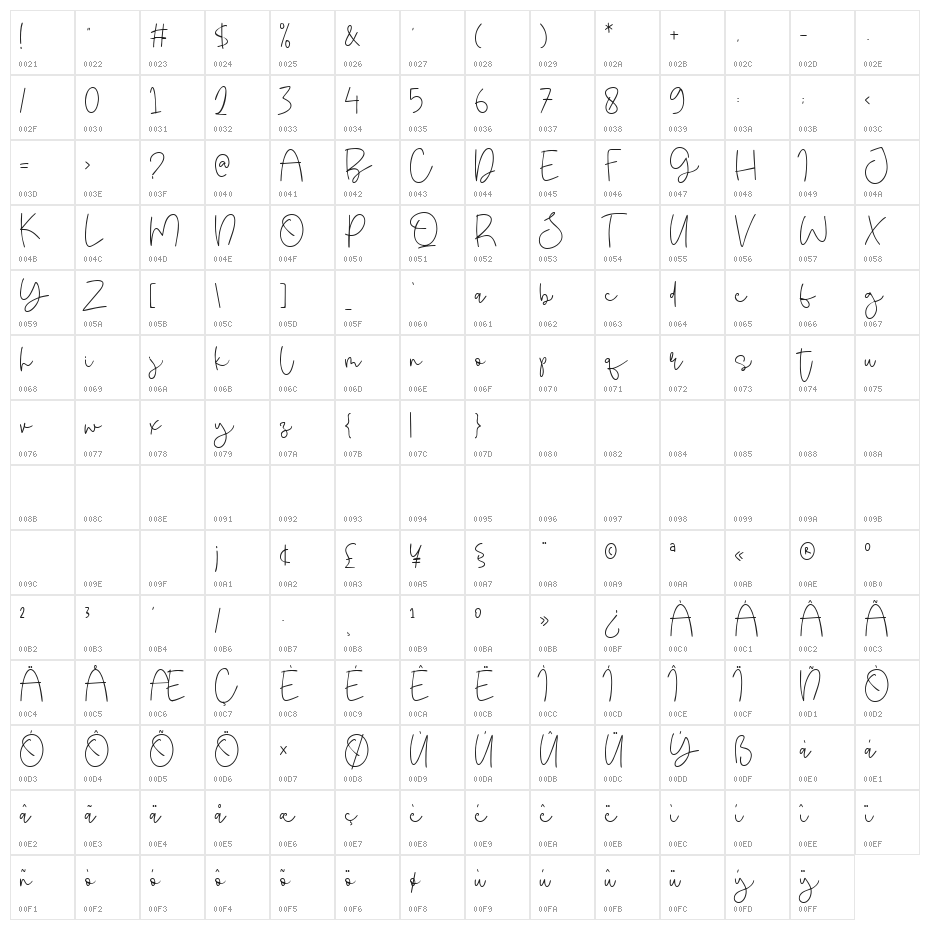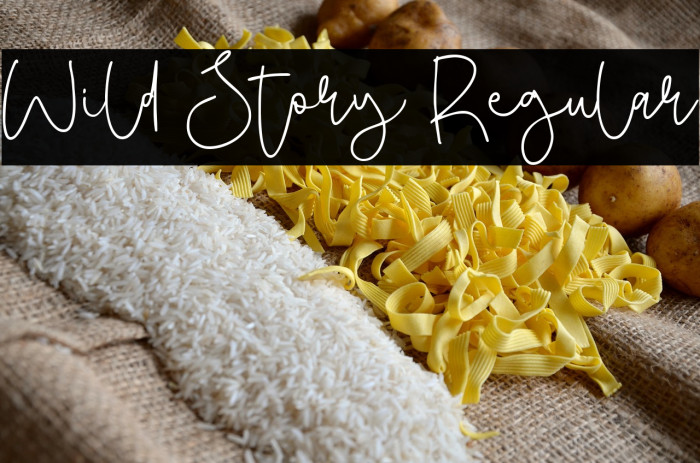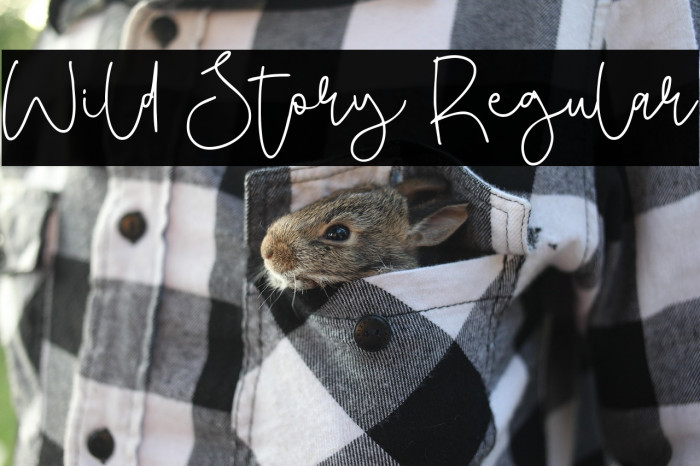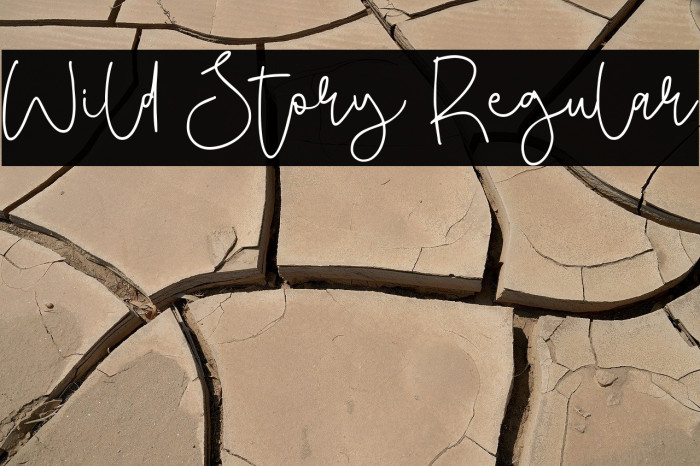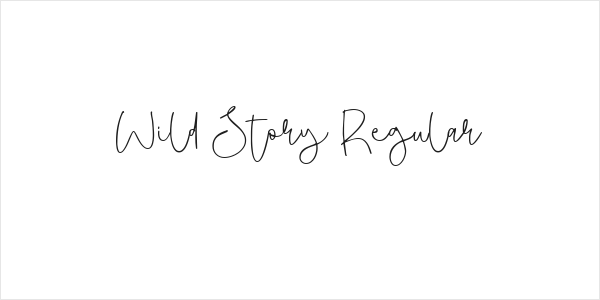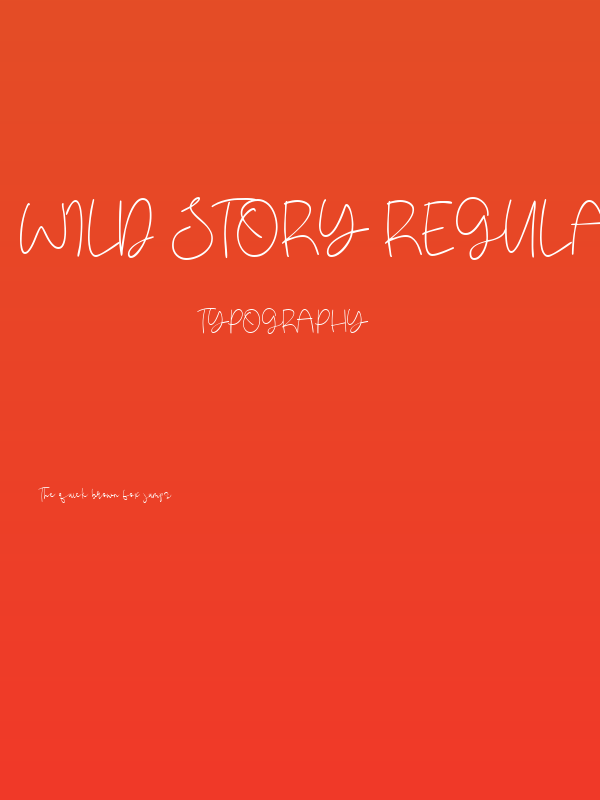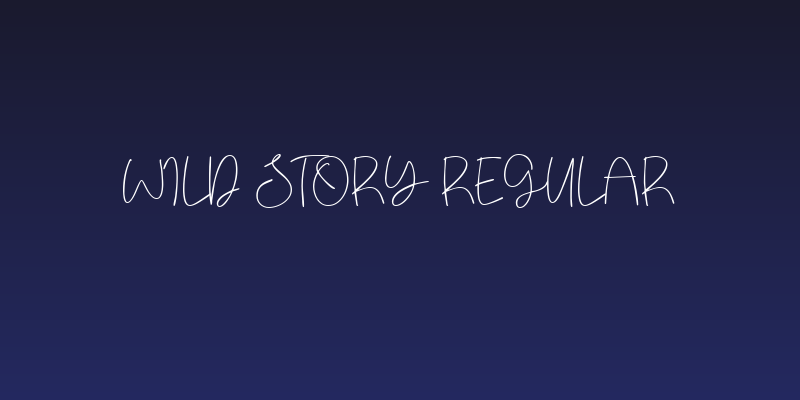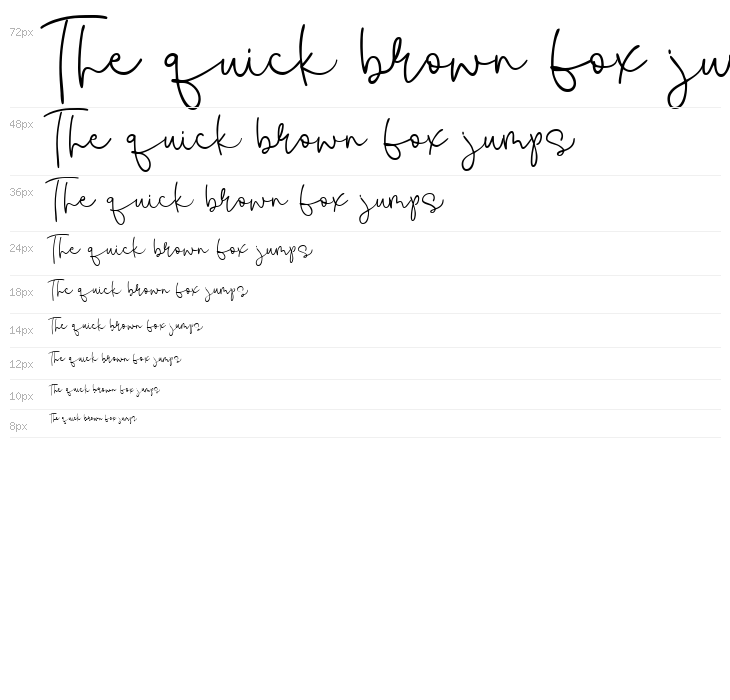
Wild Story Regular Font
Wild Story Regular Description
This font features a playful and whimsical handwritten style, characterized by its fluid and organic letterforms. The uppercase letters exhibit a casual elegance with slightly elongated strokes, while the lowercase letters maintain a consistent flow, adding to its approachable and friendly appearance. The numerals are distinct and easy to read, complementing the overall aesthetic. Special characters are seamlessly integrated, maintaining the font's cohesive look. The font's informal yet stylish nature makes it suitable for creative projects that require a personal touch.
| Proposed Projects | Ideal for greeting cards, invitations, personal branding, and creative social media graphics. |